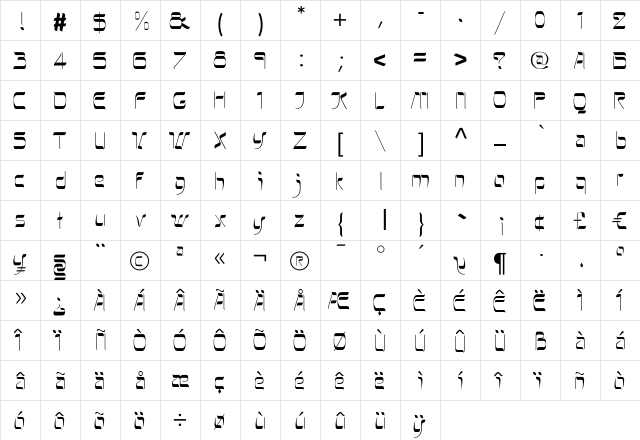
HebrewLatino Light Regular
Design Context for HebrewLatino Light Typeface
HebrewLatino Light offers clean, dependable letterforms without strong stylistic allegiance, making it a practical choice for designers who need flexibility. Its slender proportions lend an understated elegance to any composition.